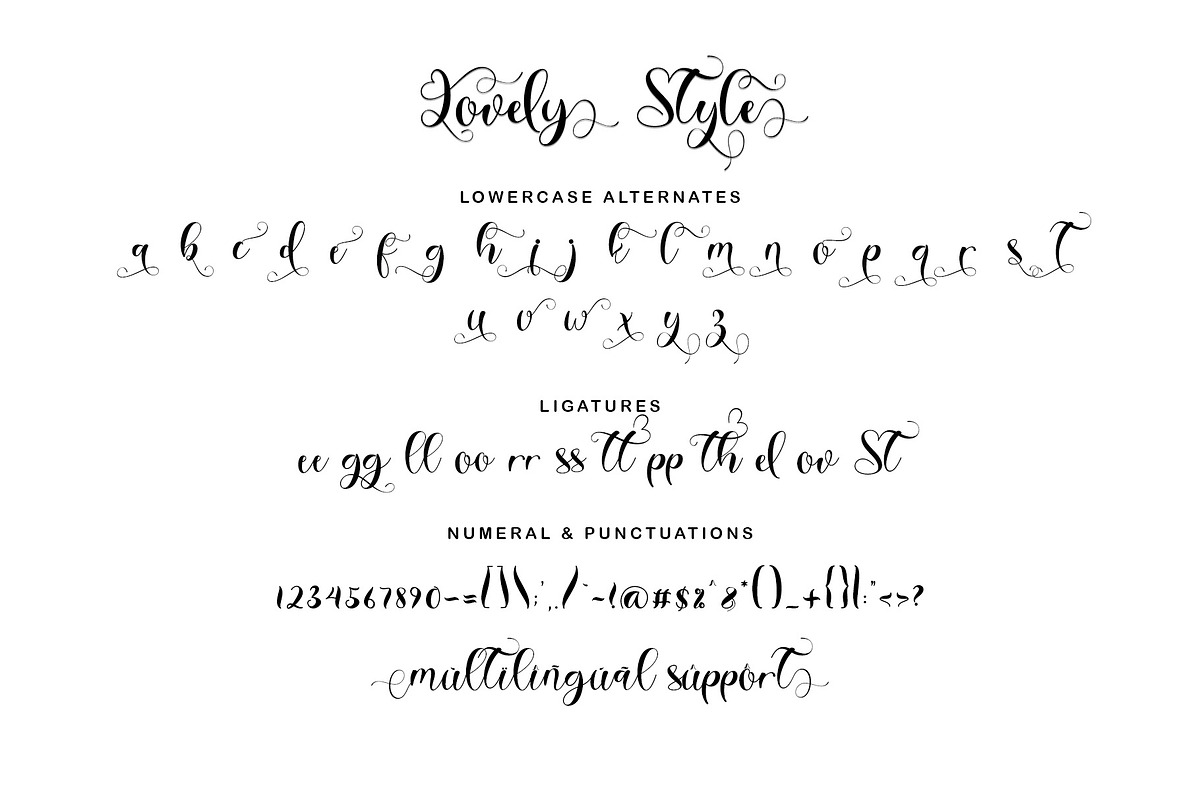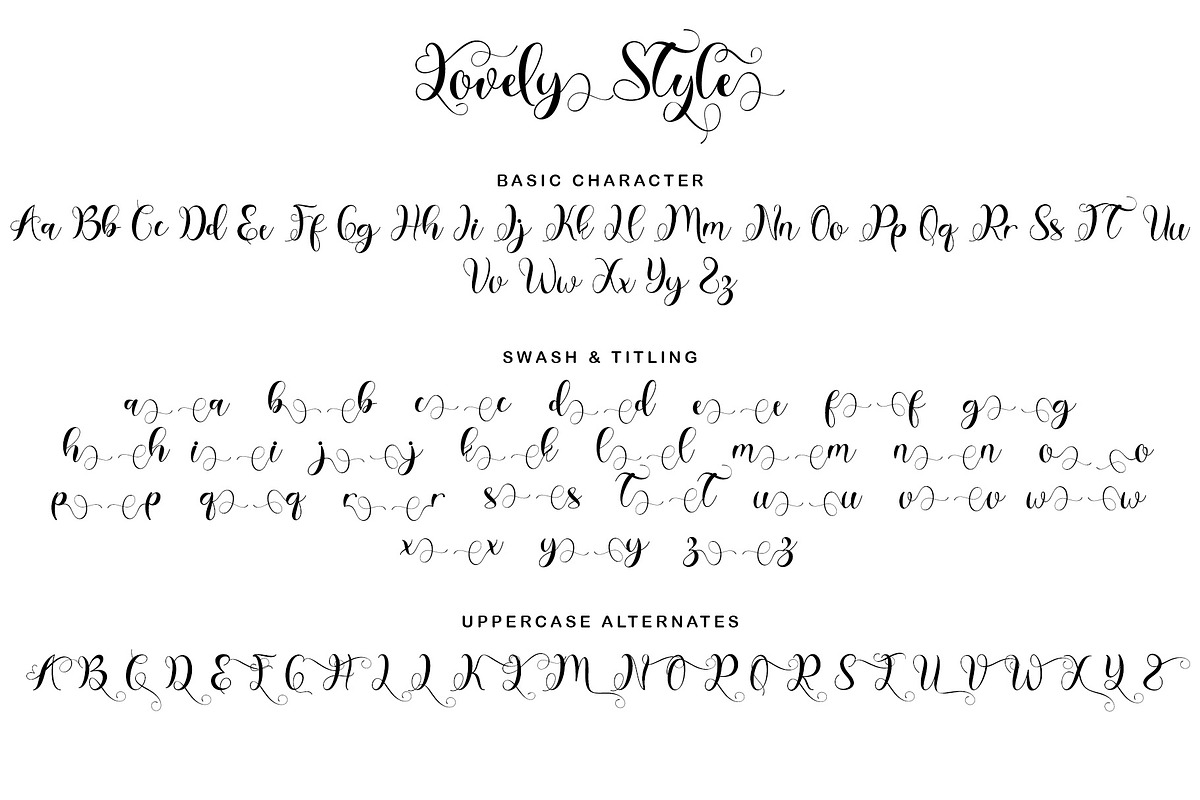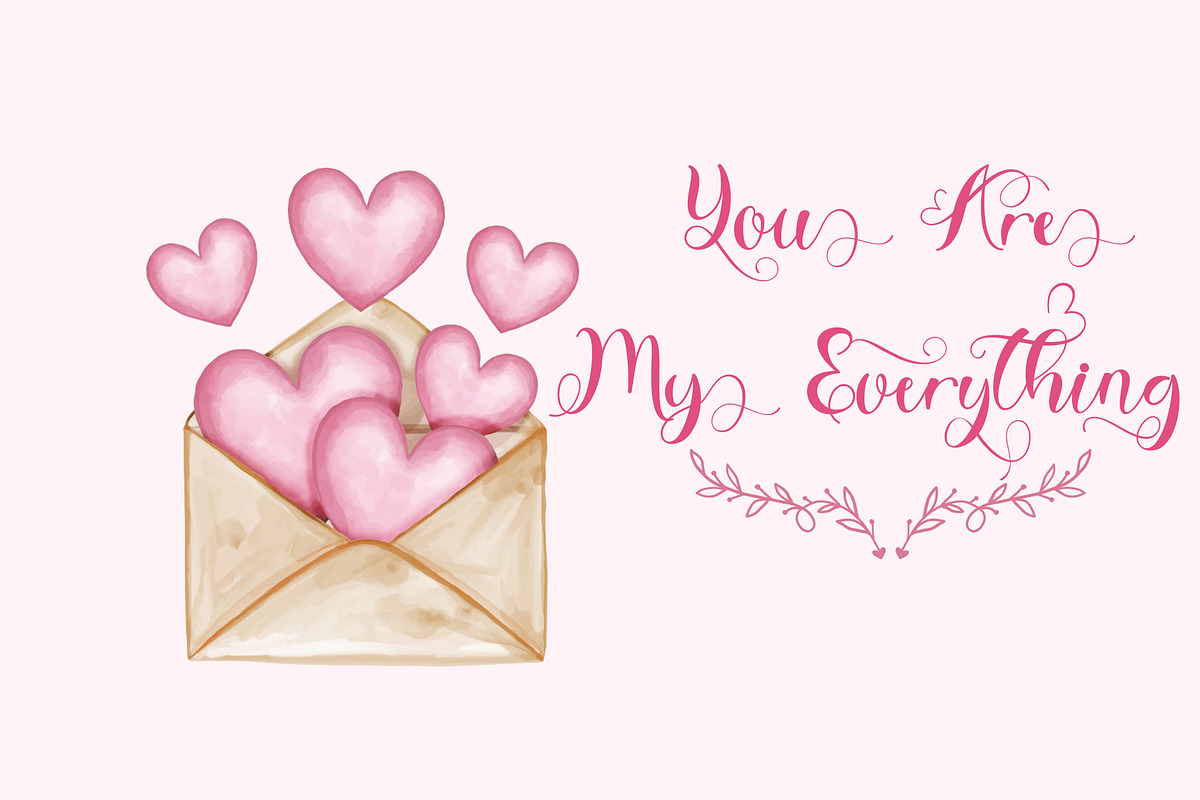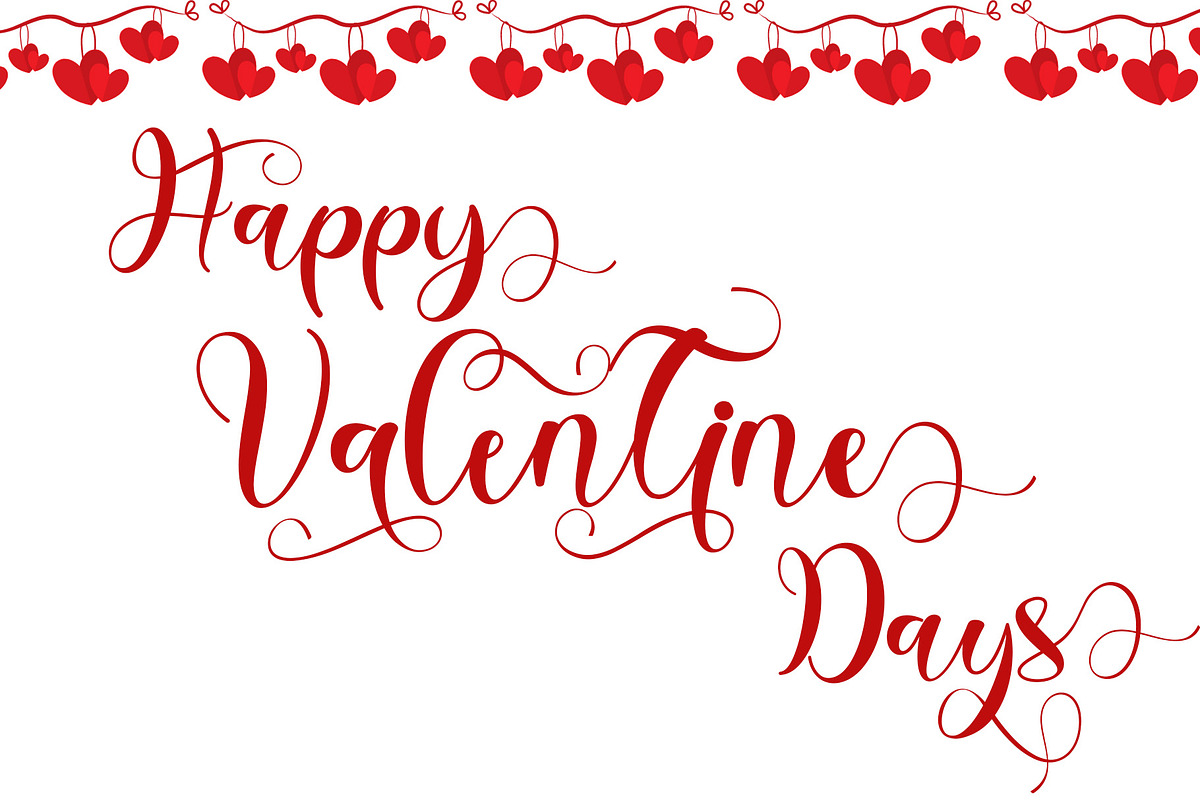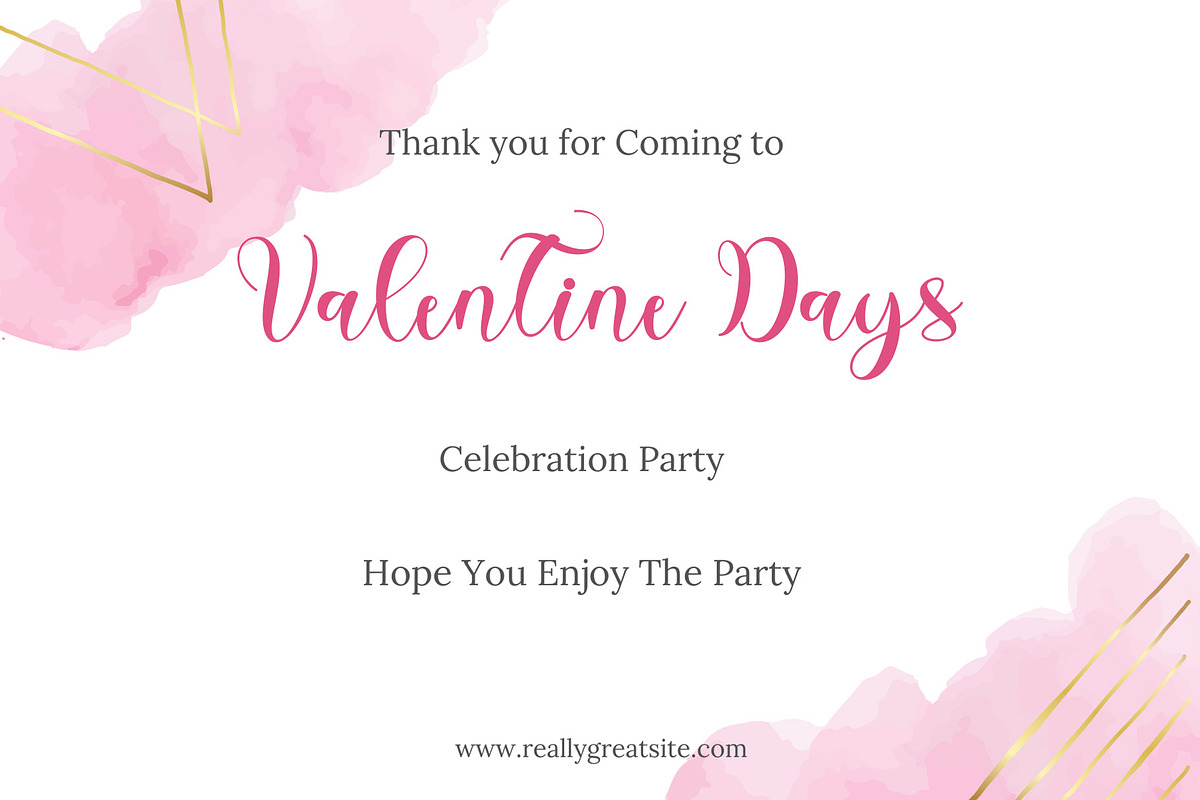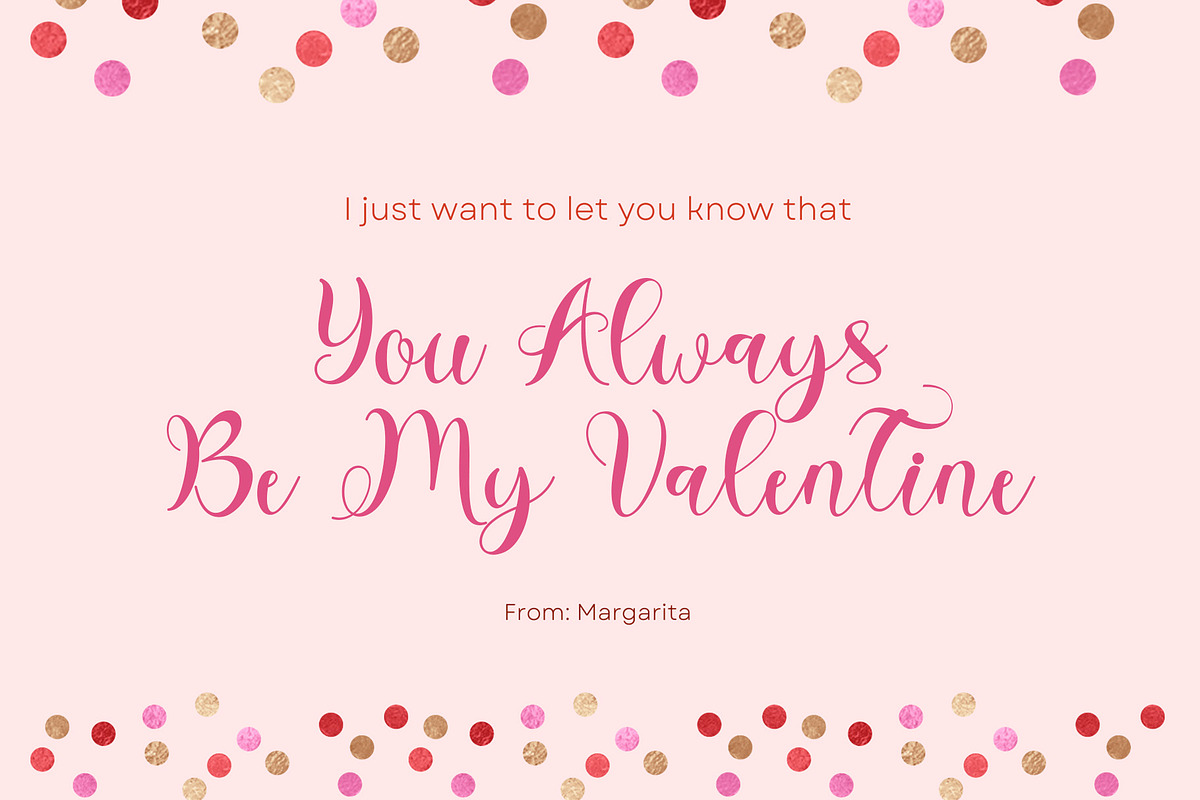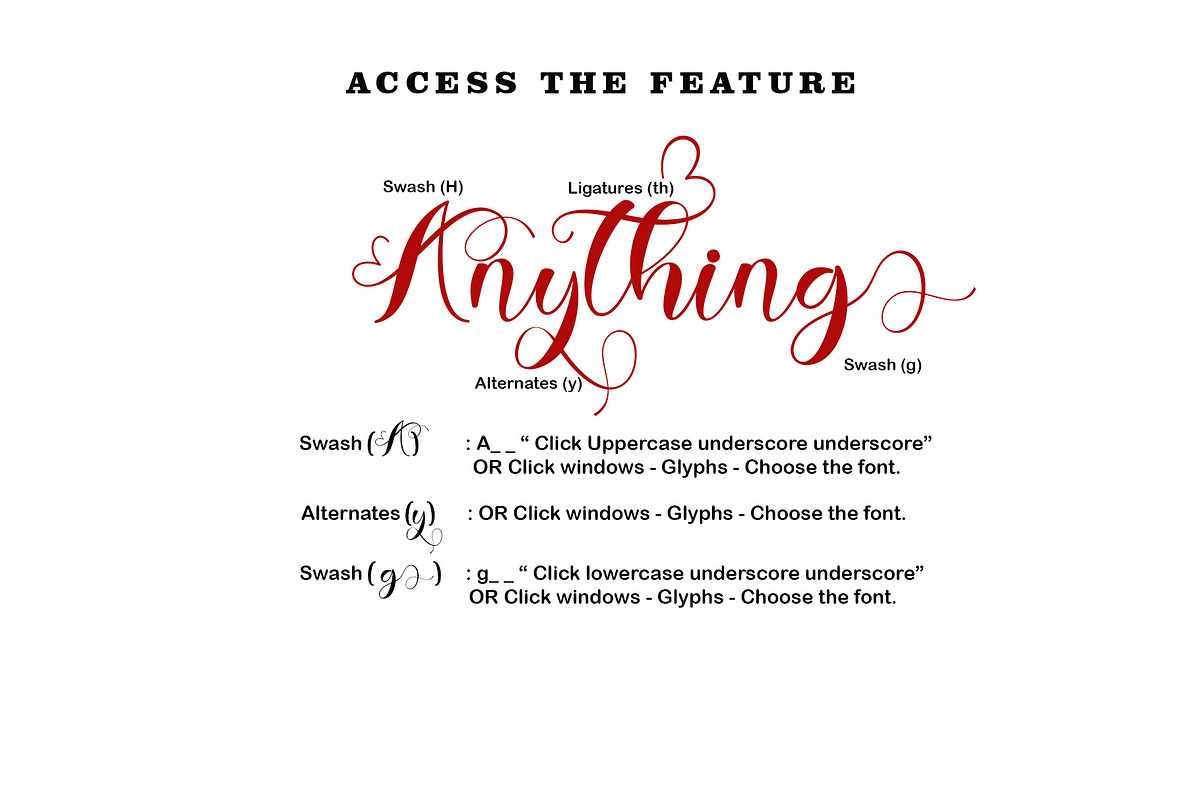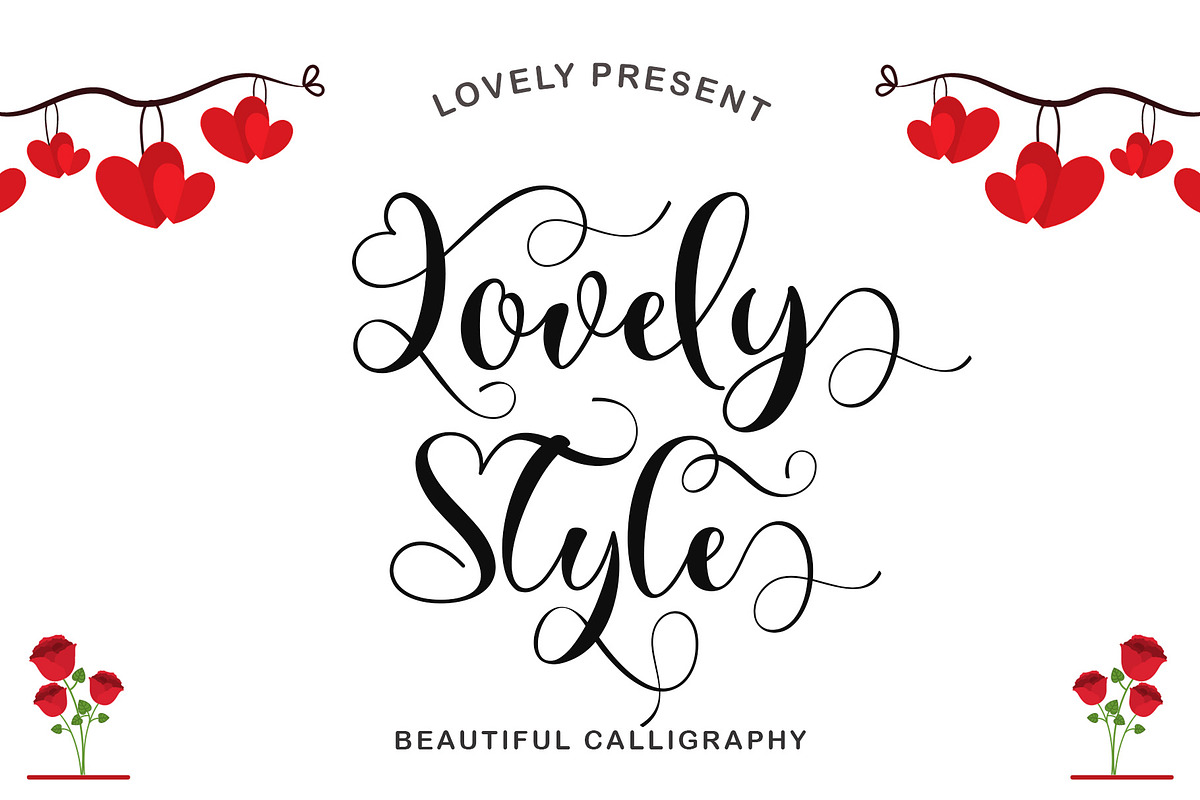
Lovely Style
"Lovely Style" is a very pretty script calligraphy font. This font is equipped with uppercase, lowercase, swash, titling, uppercase alternates, lowercase alternates, ligatures, multilingual support, numerals, and punctuations. How to use letter decoration is very easy and there is a guide in the preview. This font is perfect for weddings, valentines, engagements, stickers, banners, posters, invitations, christmas, easter, romantic moments, quotes and others.